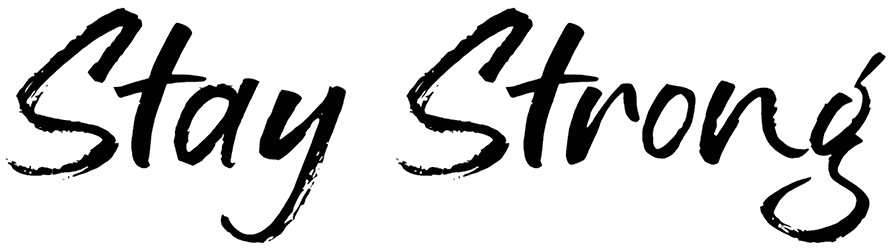
Chalky Chicken Font
Looking arouse from a messy dotted inky brush style that represents creative hand drawing. Counting on this chalkboard font as an assertive fancy option to leave a lasting impression in any graffiti display design.
The Chalky Chicken font can give a friendly and playful touch to your typography, especially in designing TV shows, comic books, headlines, movie titles, apparel, and more with its bold dirty effects.